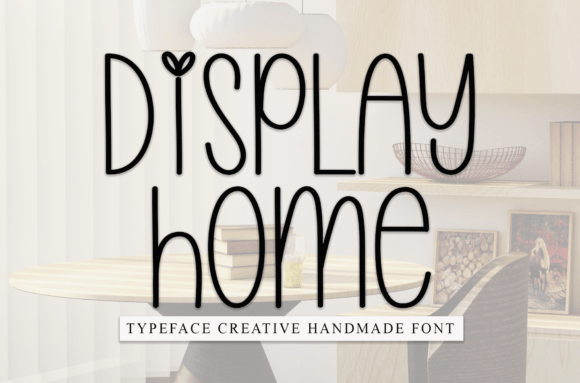
Introducing Displayhome Font - the Best Font for Fashion Brands, created by the talented William Jhordy. Are you looking for a font that will make your fashion brand stand out? Look no further! Displayhome Font is the perfect choice for anyone who wants to add a touch of sweetness and friendliness to their designs.
This font belongs to the script font family, and it has been designed with the specific purpose of adding a fun and cute touch to any design. Whether you are writing wedding invitations or designing cards, Displayhome Font is the perfect choice.
What makes Displayhome Font so special? For starters, it is incredibly versatile. You can use it for a wide range of projects, and it will always look amazing. But that's not all! This font is also incredibly easy to read, which means that your message will always come across loud and clear.
But that's not all! Displayhome Font is also incredibly eye-catching. Its unique design and fun touch will grab the attention of anyone who sees it. Whether you are designing a website or creating a social media post, Displayhome Font is sure to make your content stand out.
In short, if you want to take your fashion brand to the next level, Displayhome Font is the way to go. It's cute, fun, easy to read, and incredibly versatile. So why wait? Download Displayhome Font today and see for yourself why it's the Best Font for Fashion Brands.